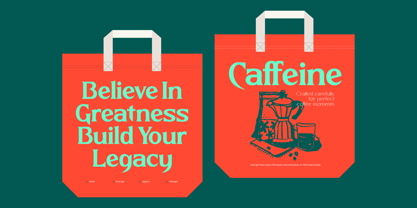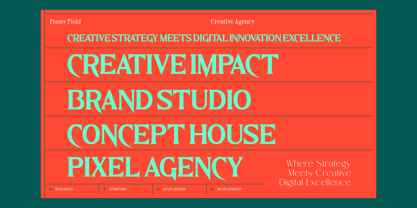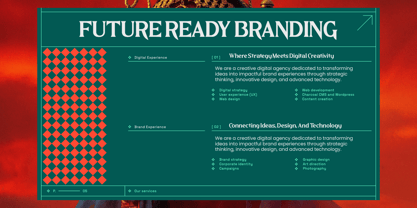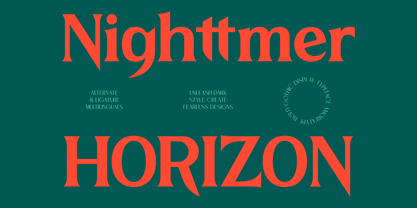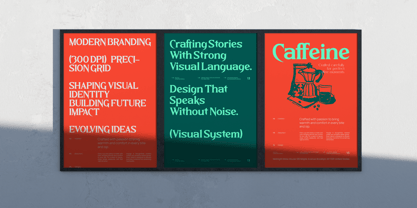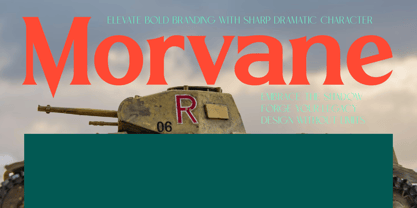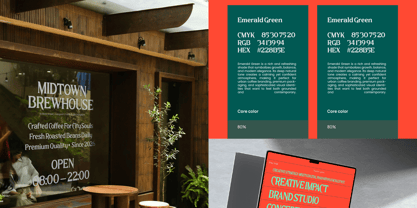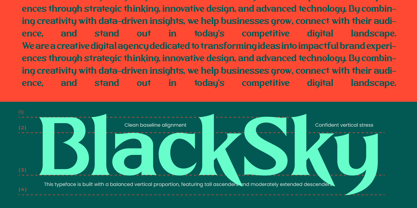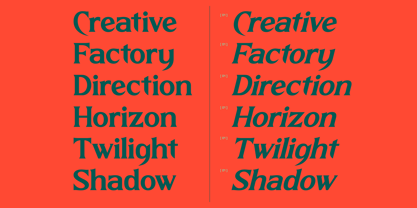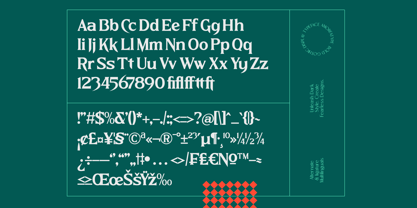
Nighttmer Horizon
by Amorfa Type
The Nighttmer Horizon Font Family was designed by Shiddiq Roihan and published by Amorfa Type. Nighttmer Horizon contains 2 styles and family package options.
Nighttmer Horizon is a bold gothic display typeface designed with dramatic contrast, sharp serif structure, and commanding visual presence. Built for impact, this typeface merges classic gothic influence with modern display proportions, creating a powerful headline font suitable for contemporary branding and editorial use. With its strong vertical stress, high contrast strokes, and refined decorative details, Nighttmer Horizon delivers a premium, confident, and authoritative tone. It performs exceptionally well in large-scale typography such as posters, magazine covers, studio branding, creative agencies, luxury packaging, advertising campaigns, and statement-driven visual identities.